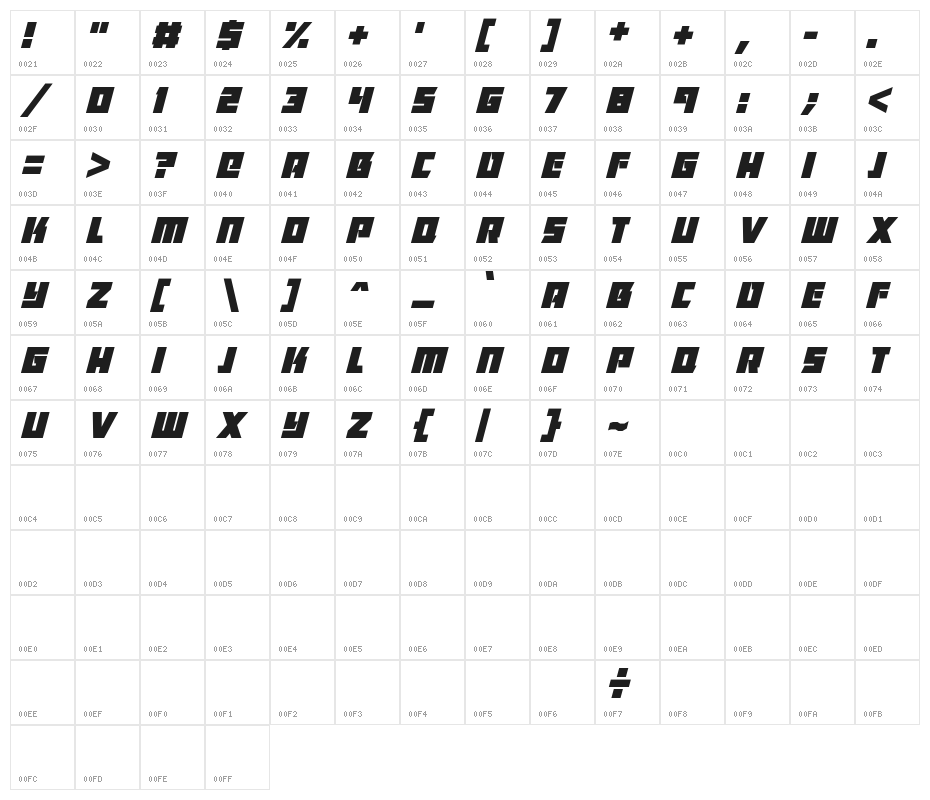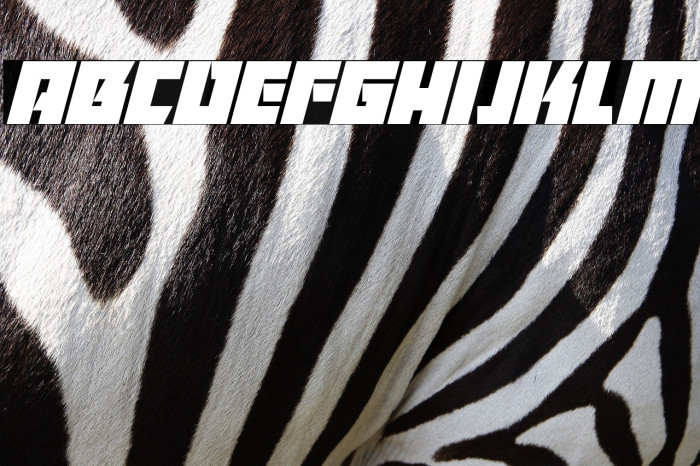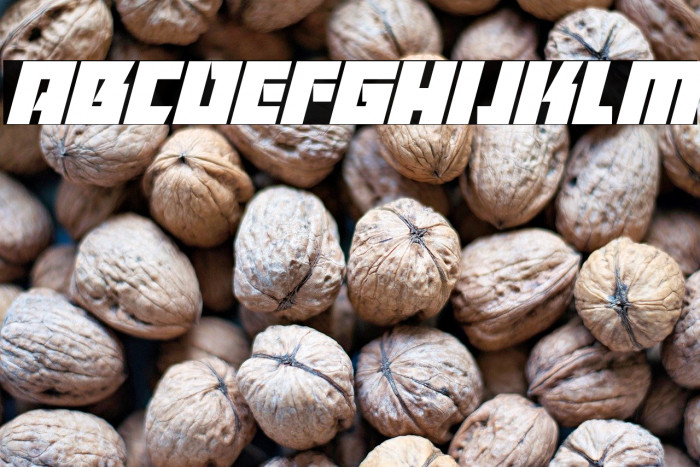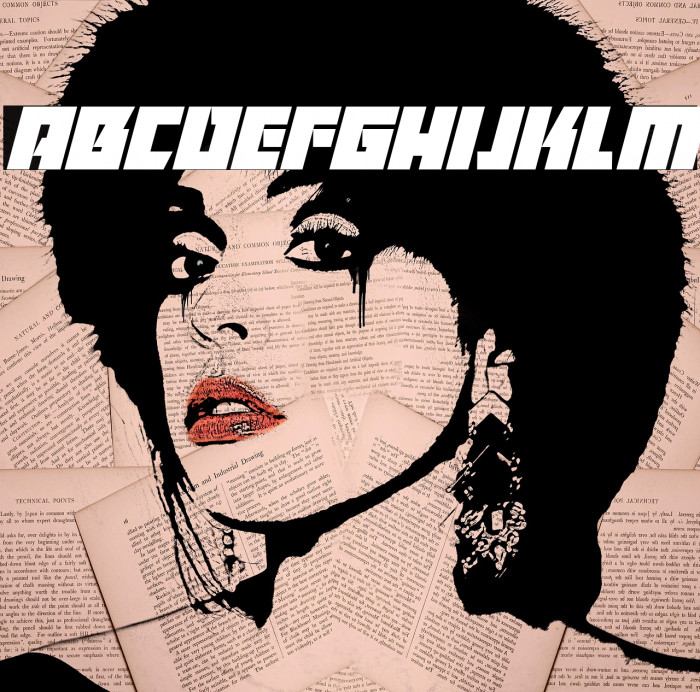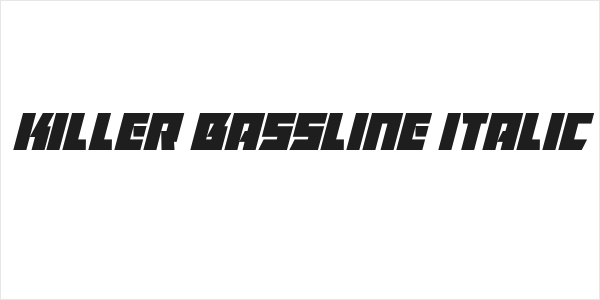
Killer Bassline Italic Font
Killer Bassline Italic Description
This font features a bold, italicized style with a strong, angular design. The characters are sharply cut with a futuristic and dynamic appearance, making it stand out with its aggressive and energetic vibe. The uppercase and lowercase letters maintain a consistent slant, enhancing the italic effect. The numbers and special characters follow the same bold and angular design, ensuring uniformity across all glyphs. The font's thick strokes and sharp edges give it a powerful presence, suitable for attention-grabbing designs.
| Proposed Projects | Ideal for music album covers, sports branding, video game titles, and dynamic posters. |